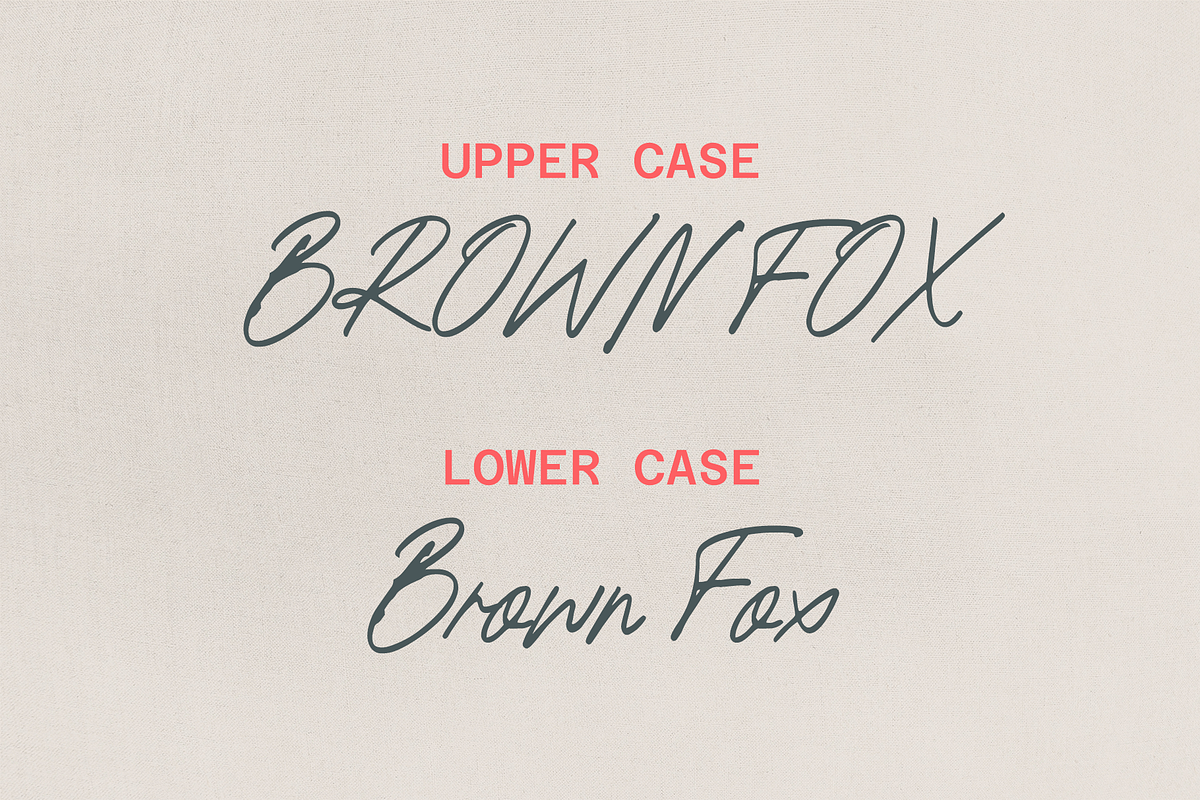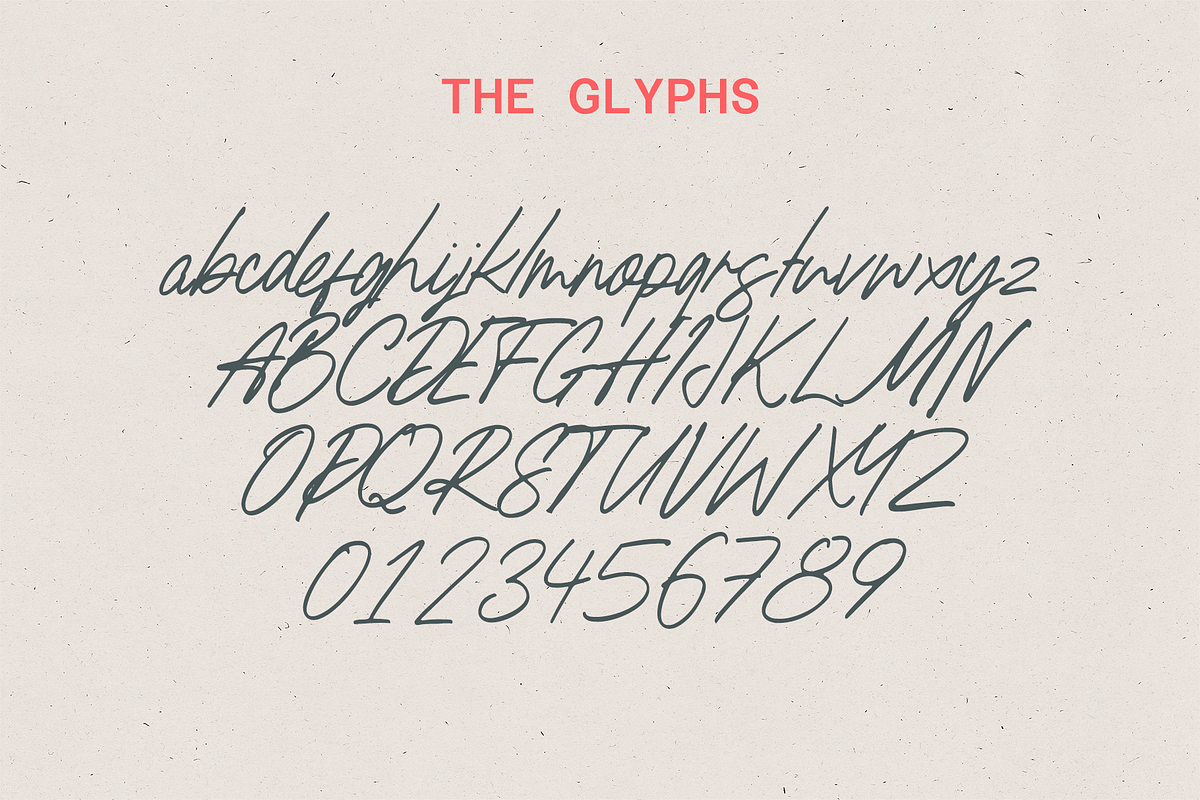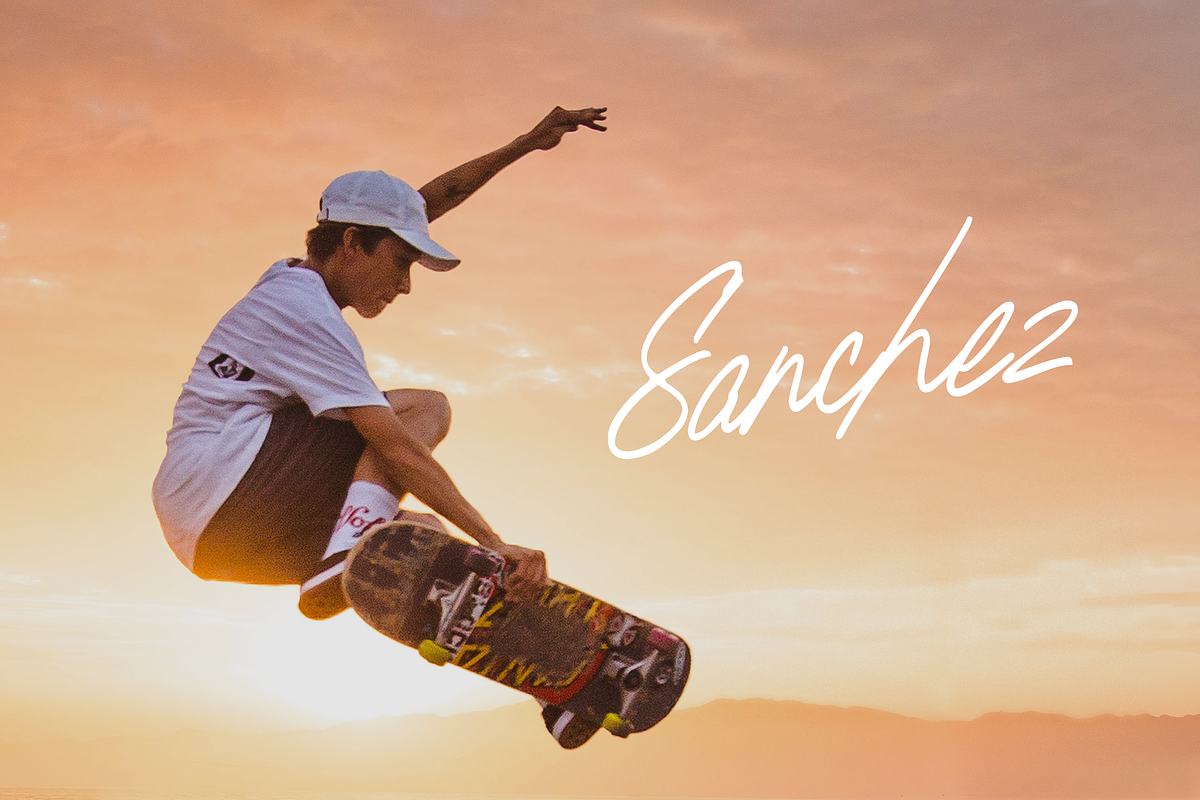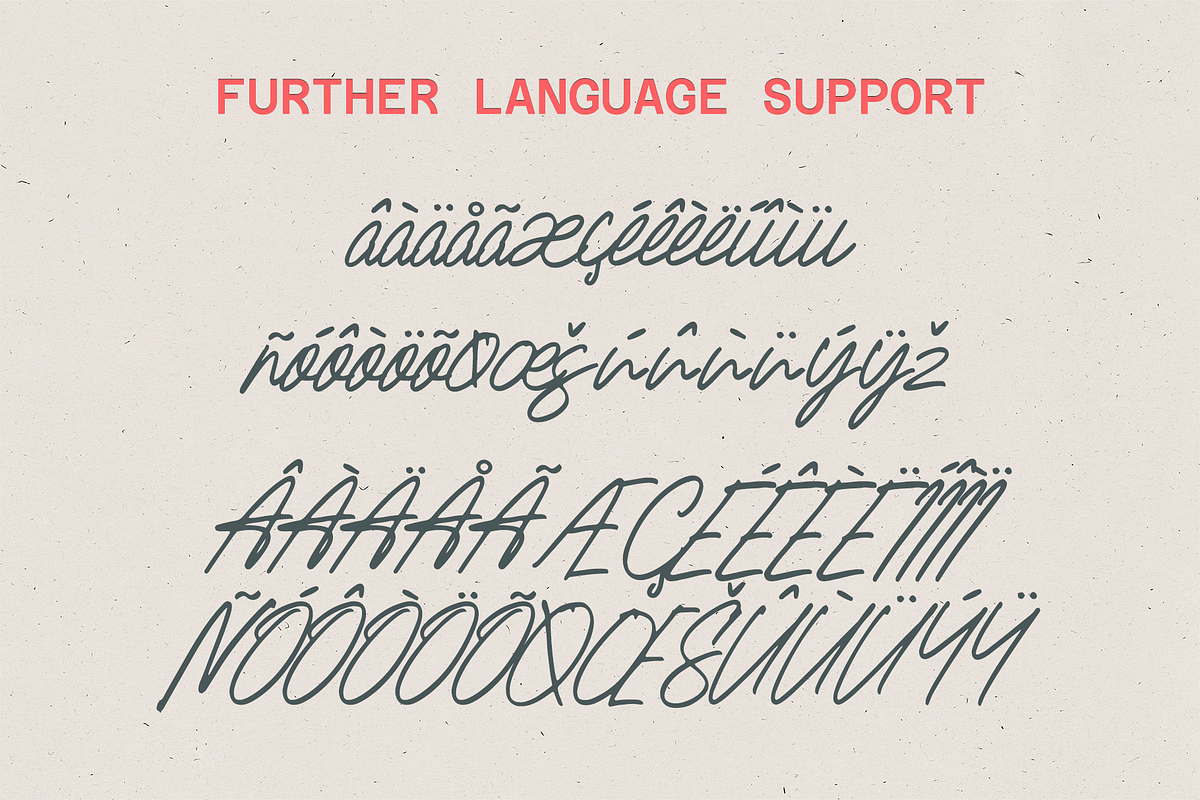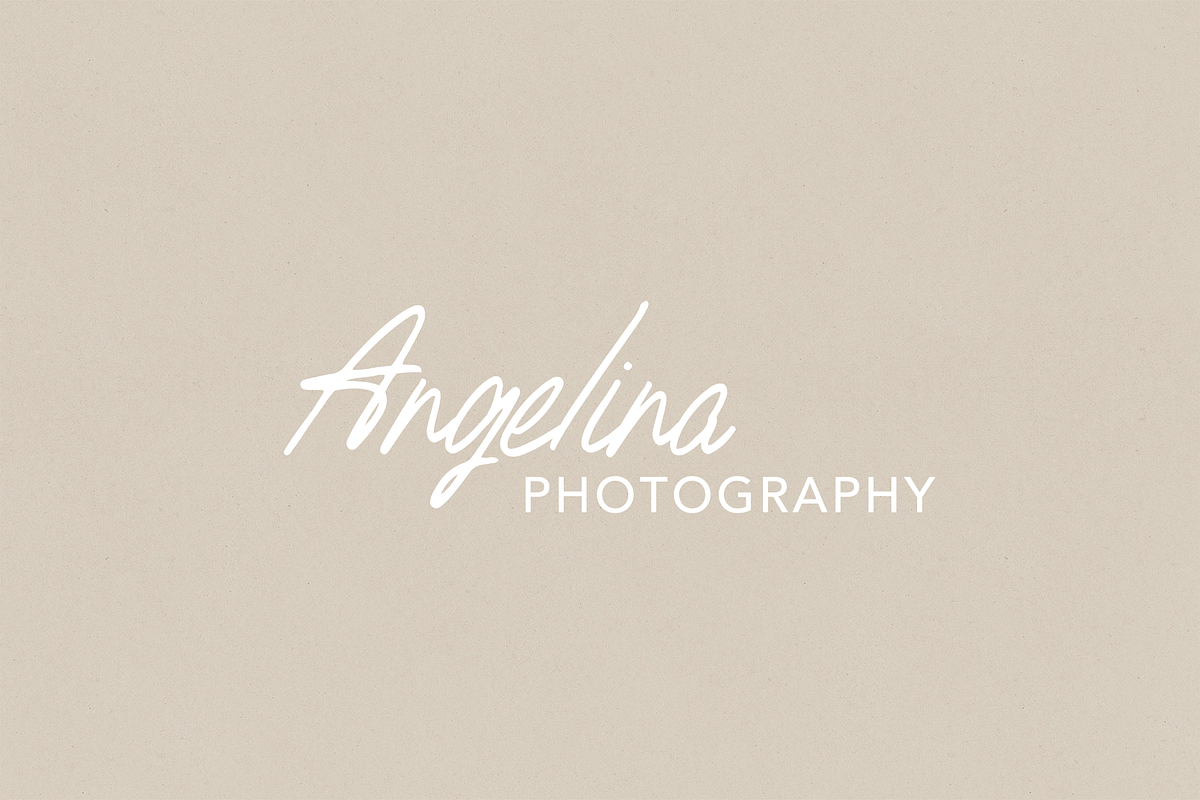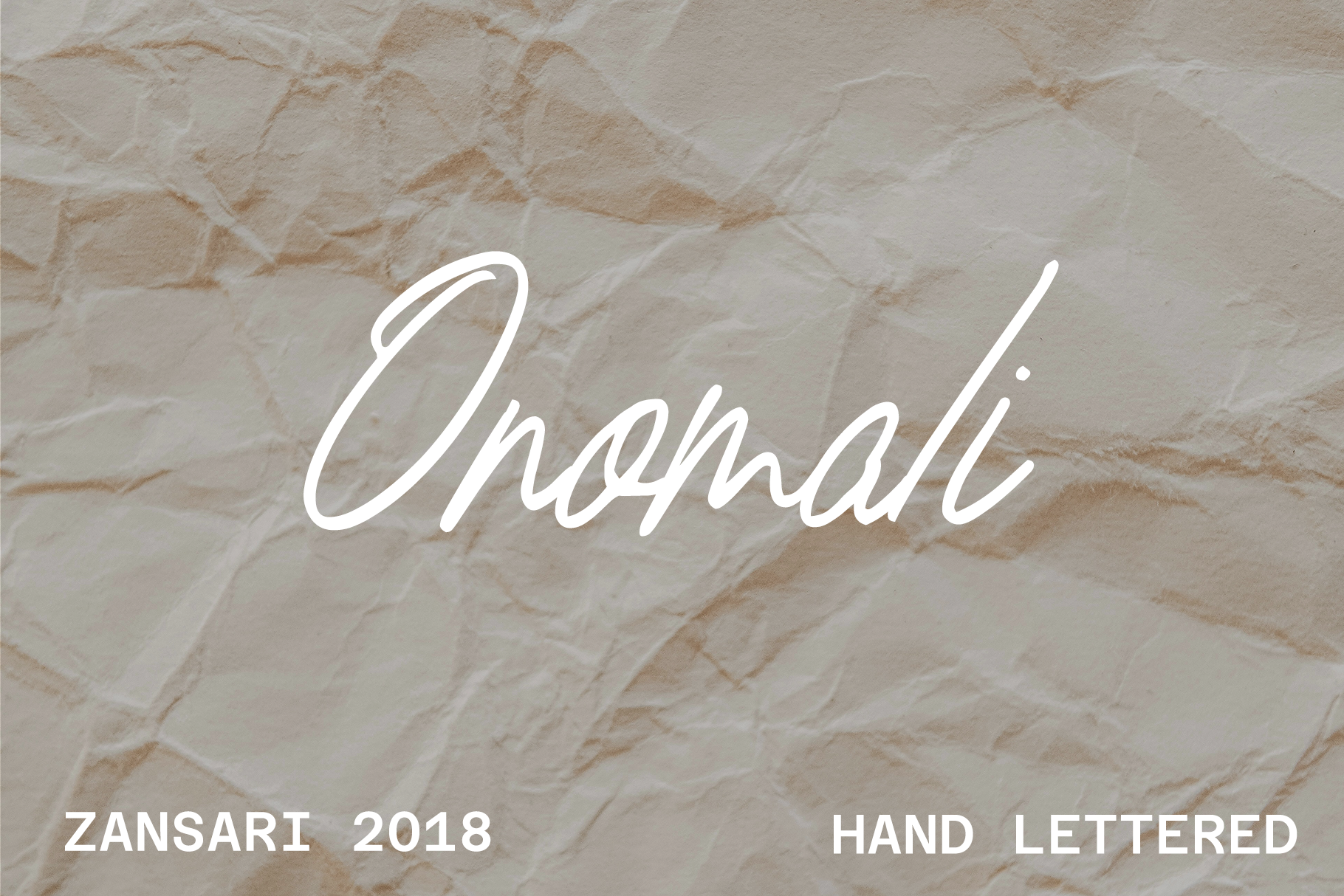
Onomali script font
Onomali hand written font is a modern and expressive font. The characters were hand written, then scanned and vectorised into a digital font file. Surfer Bay brush font was designed by Zansari font foundry in Auckland, New Zealand